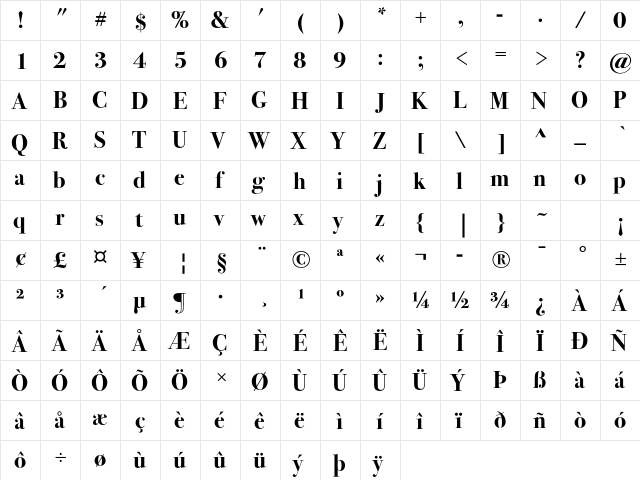
Bodoni Svntytwo ITC Std Bold
| Designer | Janice Fishman, Holly Goldsmith, Jim Parkinson, Sumner Stone |
Design Context for Bodoni Svntytwo ITC Std Typeface
Bodoni Svntytwo ITC Std offers clean, dependable letterforms without strong stylistic allegiance, making it a practical choice for designers who need flexibility. Its bold stroke weight gives it real presence on the page.
Pro Tip: Pair Bodoni Svntytwo ITC Std with a font of contrasting weight or personality to build a more expressive typographic hierarchy.